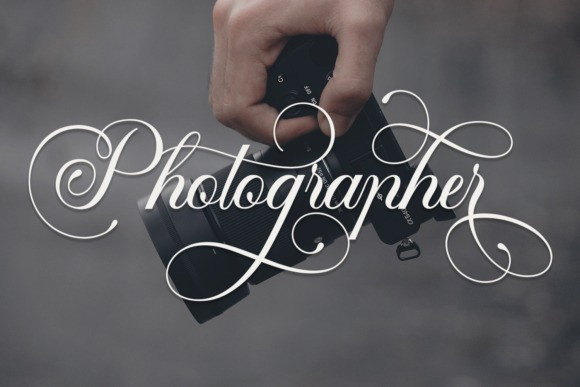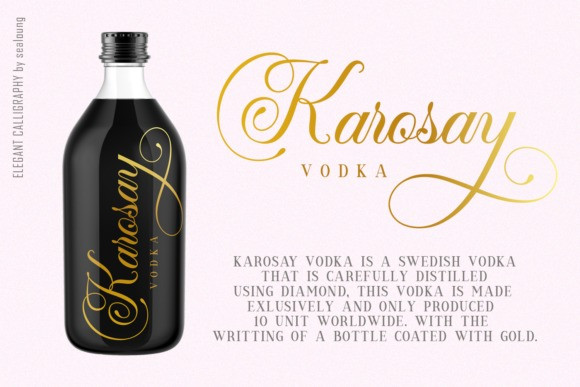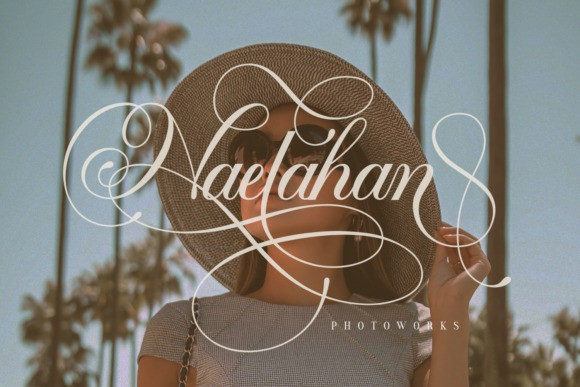
Mansdefia Calligraphy Font
It’s a dazzling script typeface manufactured by Sealoung. This font is neatly crafted and highly detailed. Inspired by the handwriting of Italian women and ancient manuscripts. It is perfect for book covers, greeting cards, logos, branding, business cards, and so much more! This font is PUA encoded which means you can access all of the glyphs and swashes with ease!